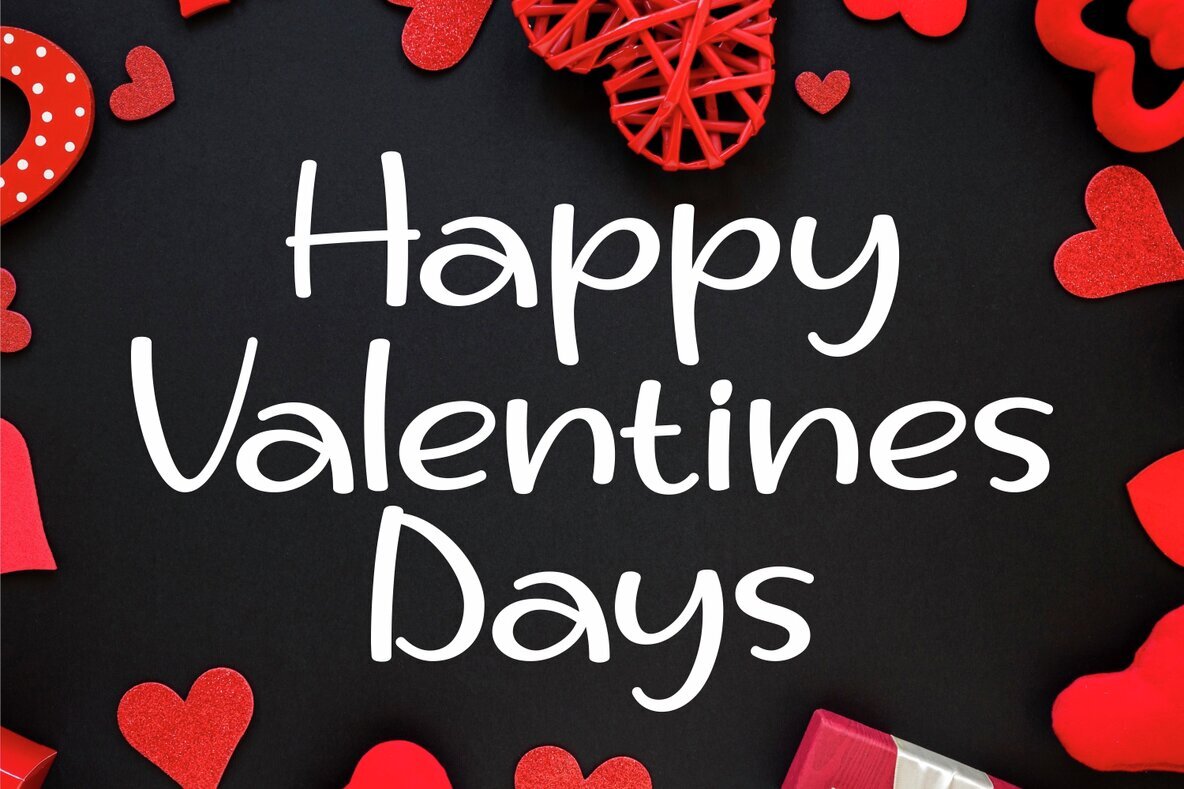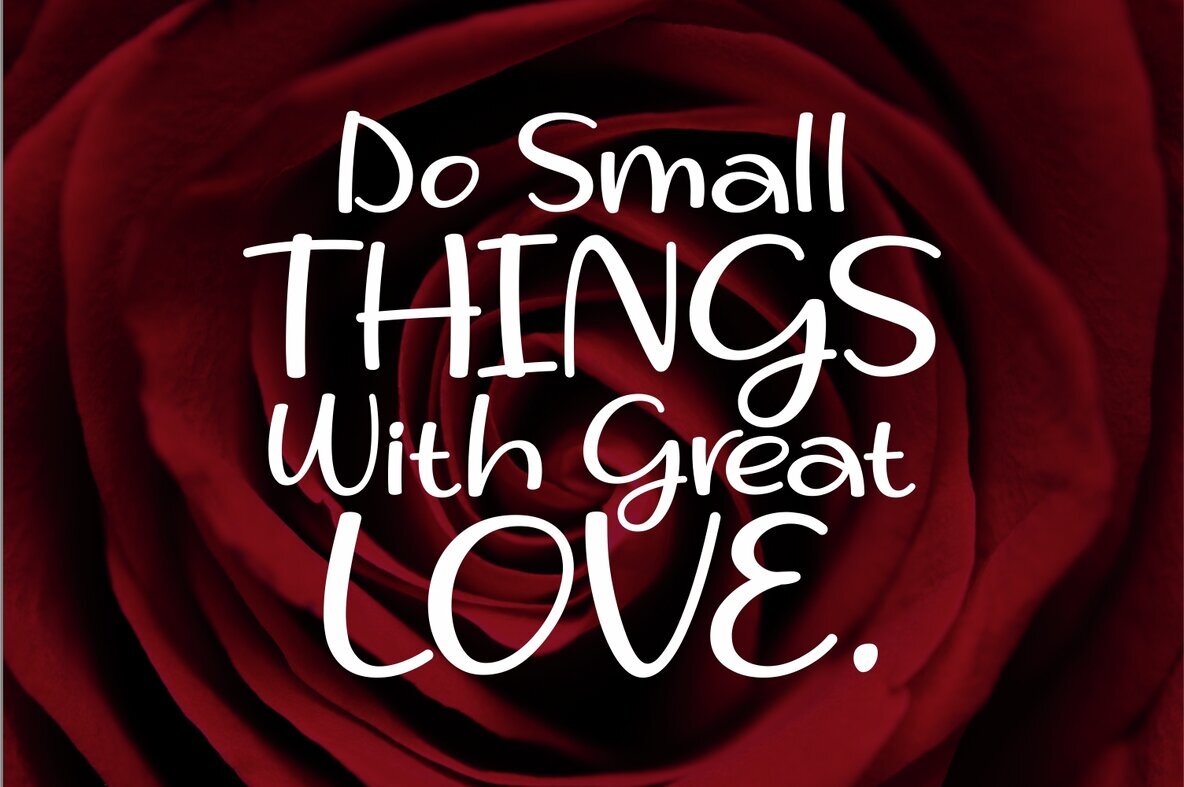
The Gredy Cute Font
The Gredy Cute
The Gredy Cute offers a charming and contemporary script style designed to capture attention. With its playful appearance, this typeface is perfect for adding a touch of warmth and friendliness to your designs.The Gredy Cute: Friendly and Modern Script Typeface